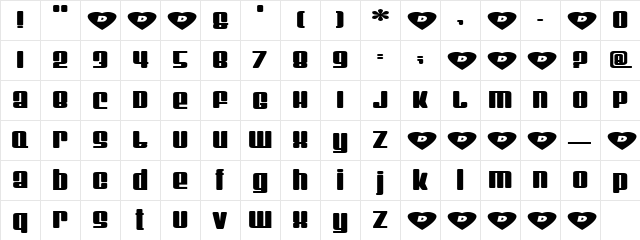
RichardManuel Regular
Design Context for RichardManuel Typeface
RichardManuel is a composed and adaptable typeface that performs quietly and consistently across a wide range of design contexts.